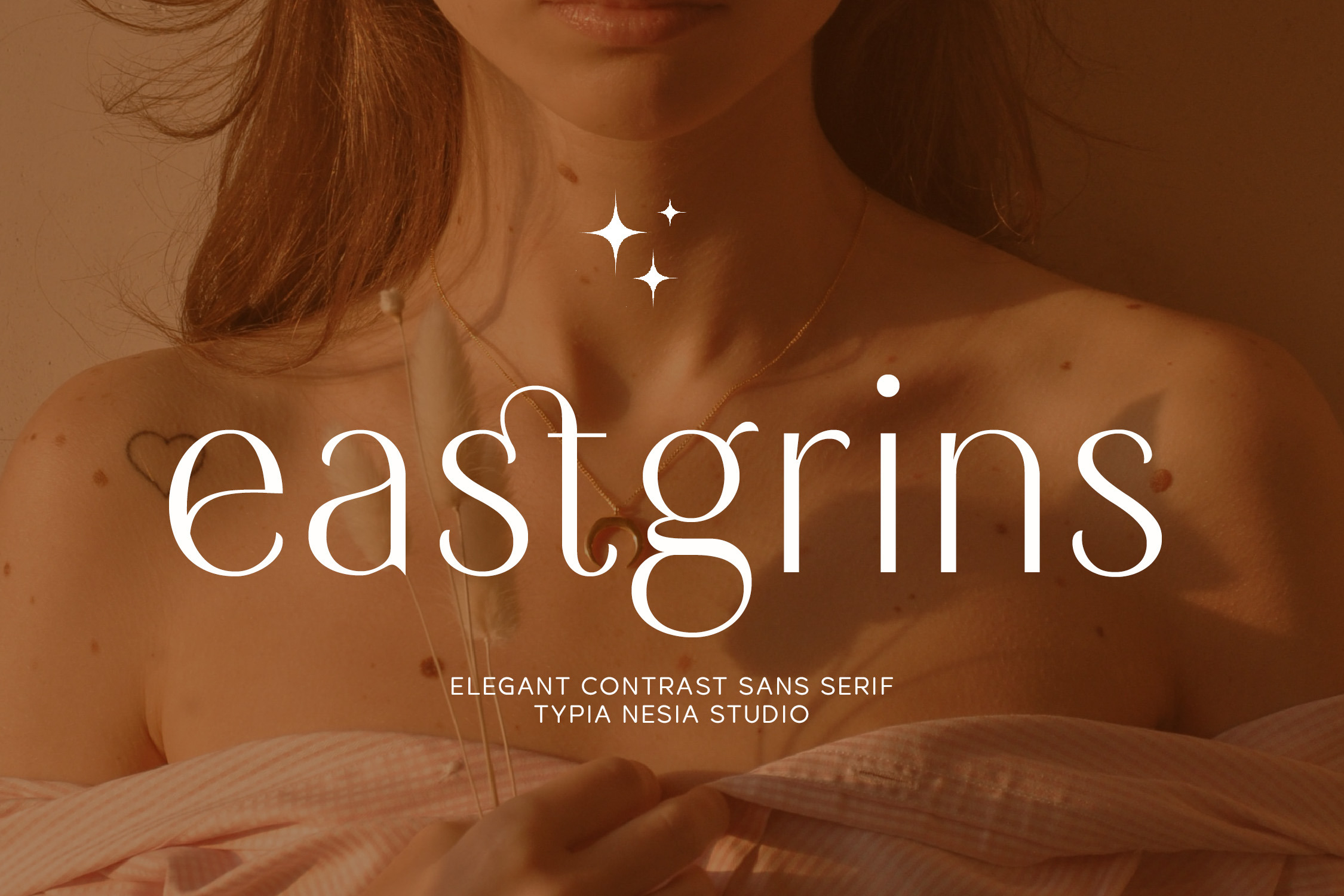
Eastgrins
Eastgrins is an art deco and sans serif font family published by Typia Nesia.
Eastgrins - Elegant Beauty Fancy Expressive Display Font - Contrast Sans Serif Font
Eastgrins comes with some ligatures, so you can combine it to make a perfect typography design. It is perfect for your up coming projects. Such as luxury logo and branding, classy editorial design, woman magazine, cosmetic brand, fashion promotional, art gallery branding, museum, historical of architectural, boutique branding, stationery design, blog design, modern advertising design, card invitation, art quote, home decor, book/cover title, special events and any more.
Styles Art Deco, Sans Serif